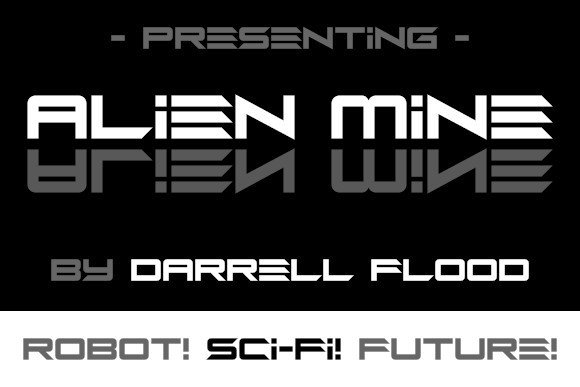
Alien Mine Display Font
Alien Mine Display Font is a futuristic, sci-fi font, in a sharp, angular style. This demo font is for PERSONAL USE ONLY! But any donation are very appreciated.